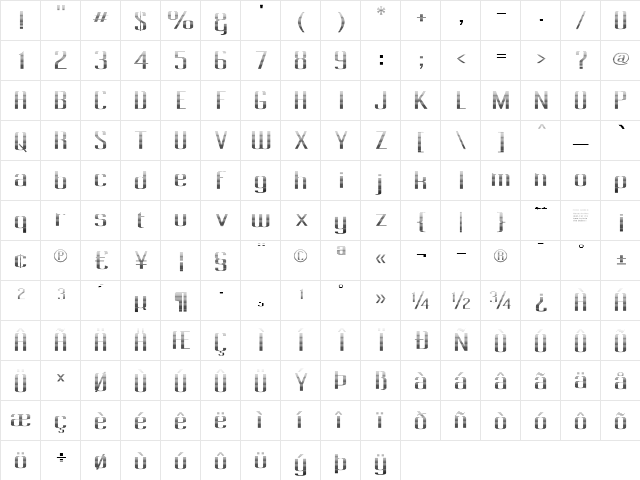
Pecot Lined Regular
Design Context for Pecot Lined Typeface
Pecot Lined offers clean, dependable letterforms without strong stylistic allegiance, making it a practical choice for designers who need flexibility.
Pro Tip: Use Pecot Lined in both headline and body roles to test its range before committing to a single application.